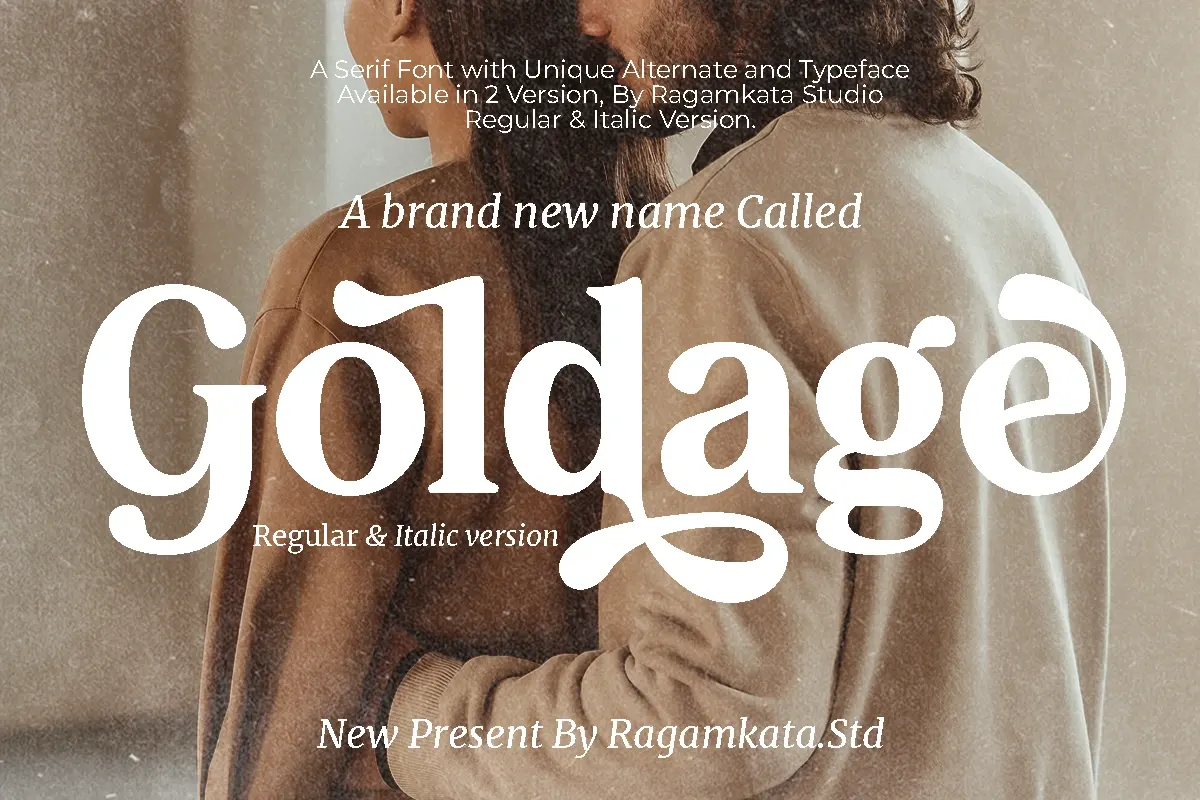
Please note that you must purchase this font for commercial use. You can download Goldage – Elegant Typeface for free, strictly for personal testing purposes only. Goldage is a refined and sophisticated serif typeface designed with luxury and elegance in mind. Featuring graceful curves, sharp serifs, and balanced proportions, Goldage Font Free Download is perfect for high-end branding, editorial designs, wedding invitations, luxury packaging, and any project that requires a timeless, elegant touch.
With its classic and polished design, Goldage adds a sense of prestige and exclusivity to your typography. It includes uppercase and lowercase letters, numerals, punctuation, and multilingual support, making it versatile for a variety of creative projects.
Whether you're designing a premium brand, working on a luxury event, or creating elegant marketing materials, Goldage brings sophistication and class to your typography.